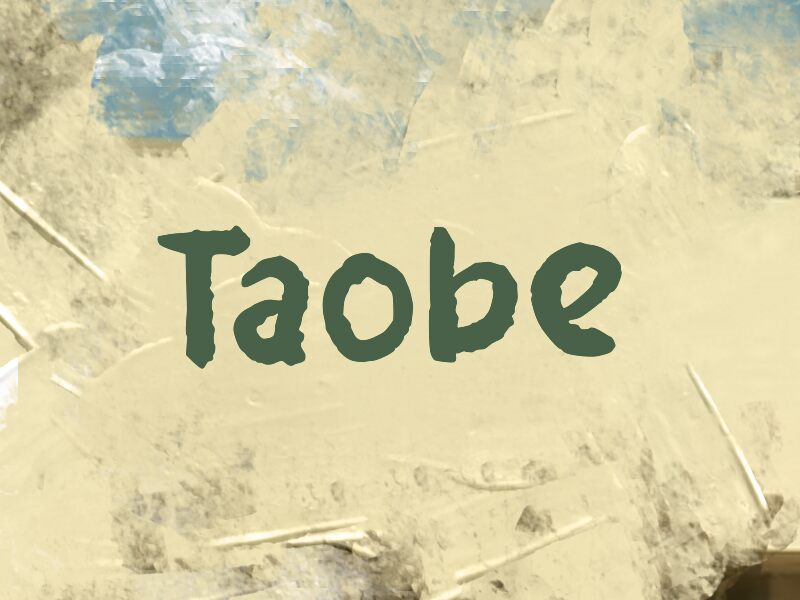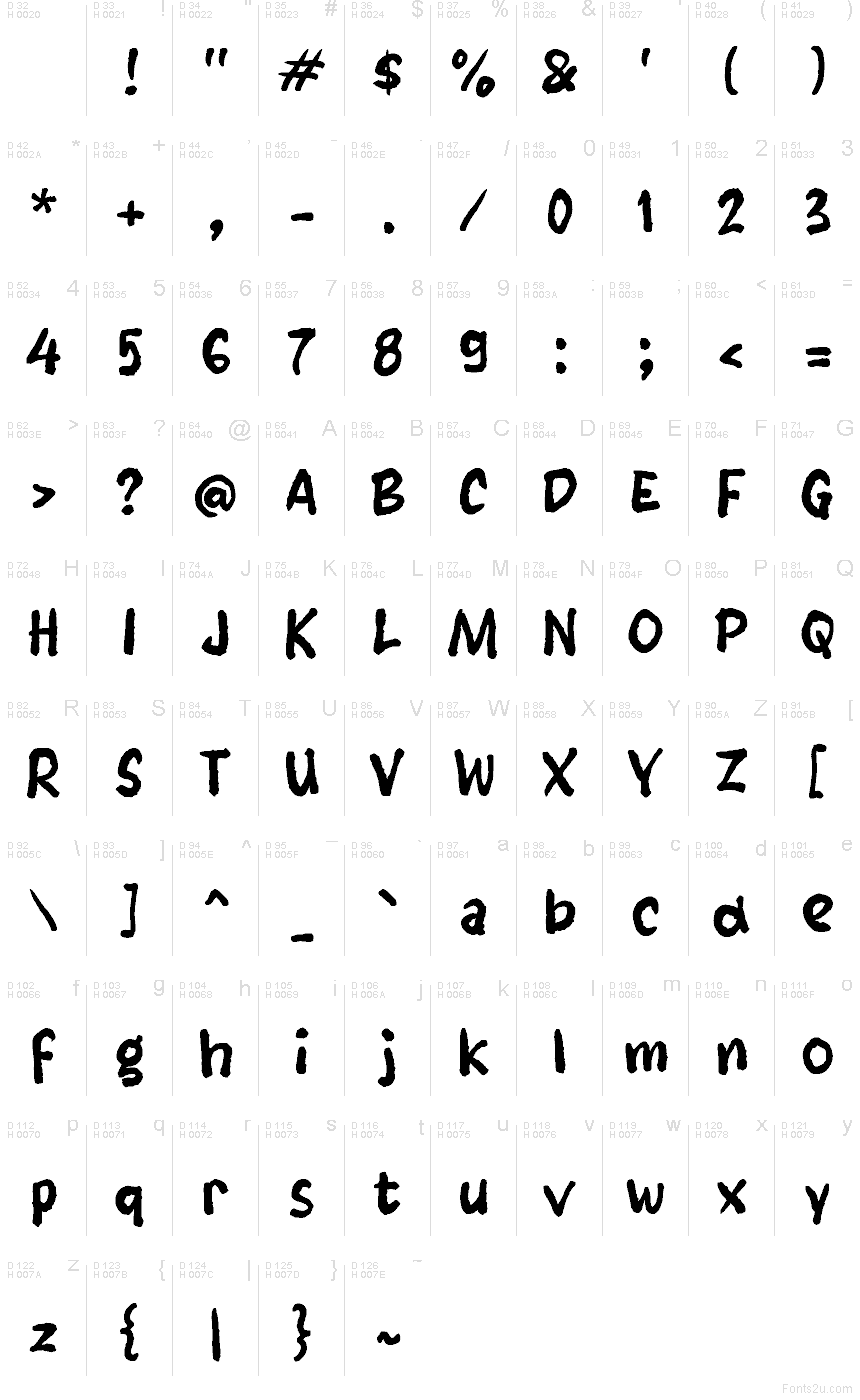
Taobe by Wep is a free brush font shaped by broad painted strokes and a slightly swollen, inked silhouette. The rough outer edge and uneven fill make the lettering feel dabbed and reworked by hand rather than swept out in a smooth script motion.
That texture gives short titles a raw poster quality, especially on music artwork, cafe branding, event flyers, packaging, and social graphics. It can also anchor logo sketches or merch designs where the soft, blotchy outline feels more like painted signage than a neat digital brush font.
Taobe
Taobe font presentation and specimen